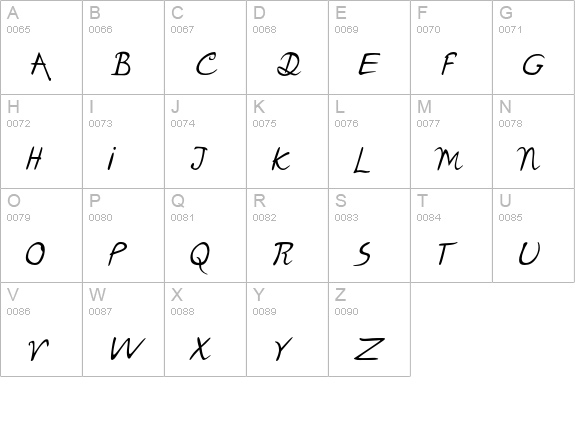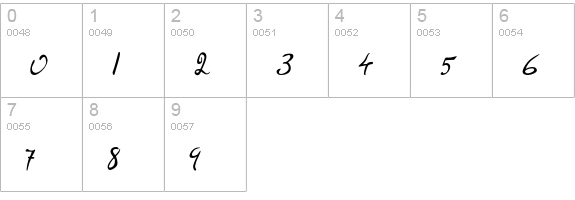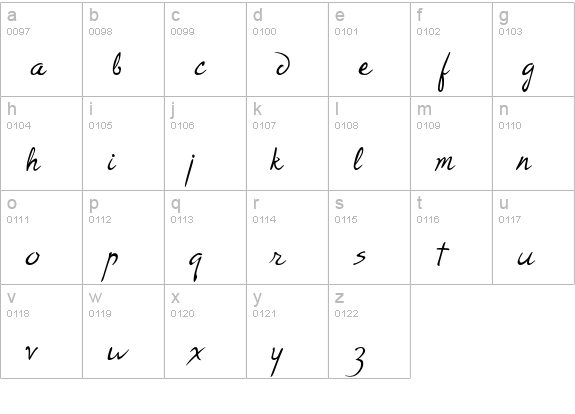
Rodin-Regular is the standard, neutral variant in the Rodin typeface family \xE2\x80\x94 well suited to general body text, paragraphs, and standard typographic work.
Rodin-Regular is a versatile and modern font that exudes elegance and sophistication. With its clean lines and timeless appeal, this typeface is perfect for a wide range of design projects, from branding to editorial design. The sleek and stylish design of Rodin-Regular makes it a popular choice among designers looking to add a touch of class to their work. One of the best things about Rodin-Regular is that it is available for free download at FontsMarket.com. This means that you can easily access this beautiful font and use it in your projects without having to worry about any additional costs. Whether you're working on a personal project or a professional design assignment, Rodin-Regular is a great choice that will help you elevate your work to the next level. Download Rodin-Regular today and see for yourself the impact this stunning font can have on your designs.